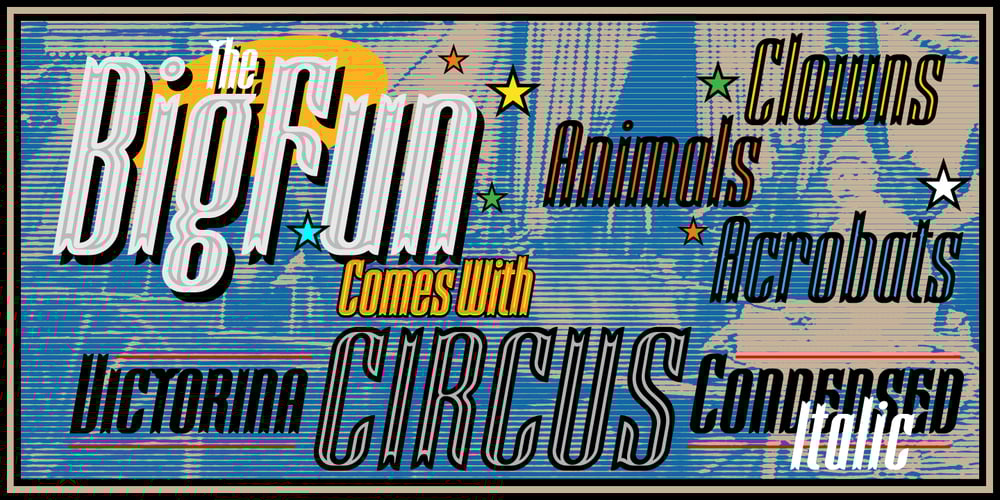
Victorina
Victorina font
Victorina Font Family was designed by John Moore and published by John Moore Type Foundry. Victorina contains 14 styles and family package options. Victorina is a fantasy sans letter or display, inspired by the Victorian letters whose stylistic influence dominated the scene graph of the nineteenth and twentieth century. Victorina has a perfect structure of rigorous geometry. Victorina comes in several versions in both Black and Condensed, in italics with a varied repertoire of styles, besides providing small caps and ornaments. Victorina lets you work fine fantasy headlines when they overlap in layers of different styles. Victorina is a letter designed to recreate, with a contemporary vision, the spirit of those days of the industrial revolution and the early days of modernism.